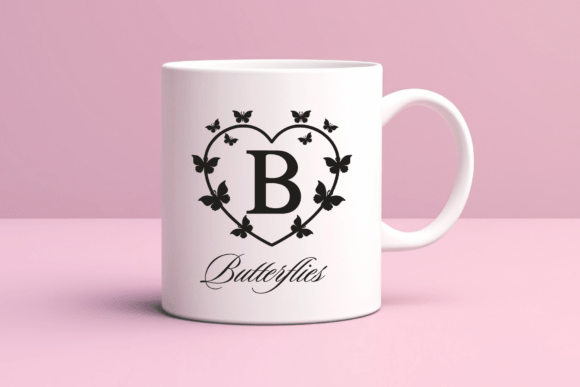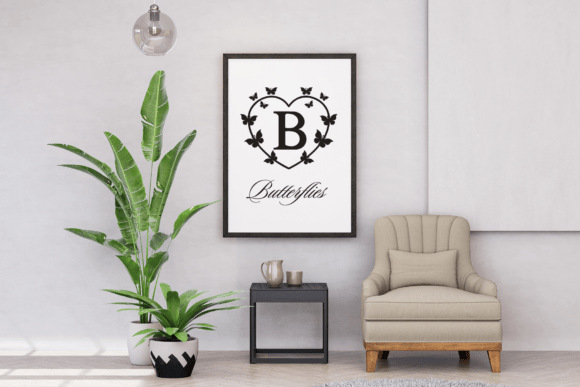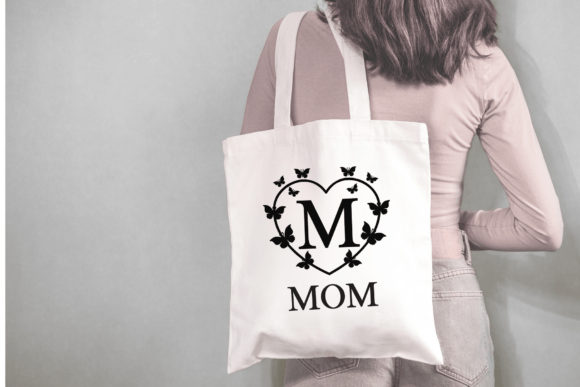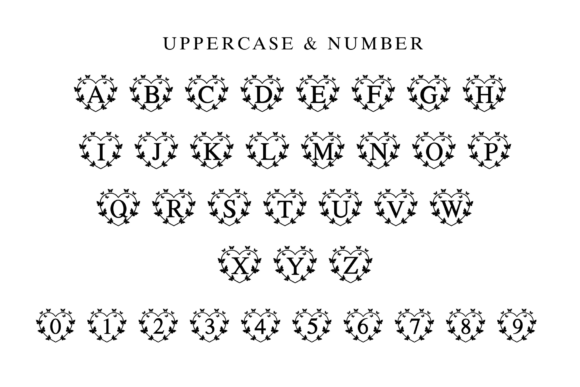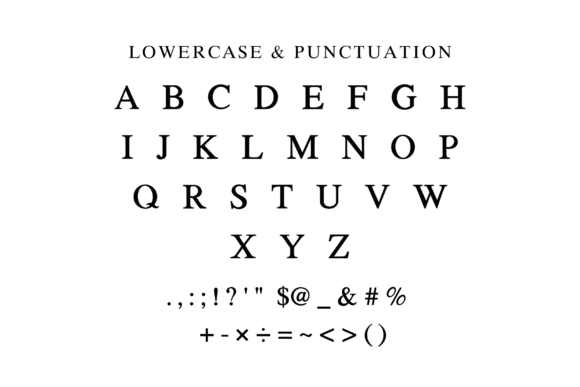
Unleash Your Creativity with the Whimsical Butterflies Monogram Font
Have you ever sat at your desk, surrounded by scraps of paper, colored pencils, and a blank page, waiting for that perfect spark of inspiration? That’s exactly where I was when I stumbled upon the enchanting Butterflies Monogram Font. As a designer, I was immediately drawn to its elegant and whimsical charm, and I knew I had to learn more.
This beautiful font is a treasure trove of lovely ornaments and authentic feel, making it perfect for creating stunning wedding invitations, gorgeous stationery art, and even eye-catching social media posts. Whether you’re a seasoned designer or a creative enthusiast, the Butterflies Monogram Font is a valuable addition to your toolkit, offering endless possibilities for crafting unique and captivating designs.
Butterflies Monogram Font Key Features
- Unique Characteristics: The font features intricate, hand-drawn designs and ornate details, making it ideal for use in wedding invitations, stationery, and other formal documents.
- Monogram Support: The font includes a range of monogram templates and is compatible with most operating systems, including Windows and macOS.
- Legibility: Despite its intricate design, the font is highly legible and easy to read, even at smaller font sizes.
Designer Review: Butterflies Monogram Font
As a designer, I’ve had the chance to work with a wide variety of fonts, and Butterflies Monogram Font is definitely one that stands out. ✨ The first thing that caught my eye was the elegant, whimsical feel of the font. The intricate details and flourishes give it a touch of sophistication that’s perfect for high-end branding or special occasions.
The font is also incredibly versatile, with a range of styles and customization options available. ✨ Whether you’re looking to create a classic, timeless design or something more modern and trendy, Butterflies Monogram Font has got you covered. The font also includes a range of punctuation and special characters, making it easy to use in a variety of contexts.
- Elegant, whimsical feel that’s perfect for high-end branding or special occasions
- Intricate details and flourishes add a touch of sophistication
- Highly versatile with a range of styles and customization options available
- Some users may find the font to be too ornate or overwhelming
- May not be suitable for text-heavy designs or body copy
- Can be difficult to read at small font sizes
Overall, I would give Butterflies Monogram Font 4 out of 5 stars. It’s a beautiful, elegant font that’s perfect for special occasions or high-end branding. However, it may not be the best choice for every design project, and users should be aware of its limitations before using it.
The Butterflies Monogram Font is ideal for:
2. Baby shower invitations and decorations.
3. Personalized gift tags and cards.
4. Social media graphics and branding.